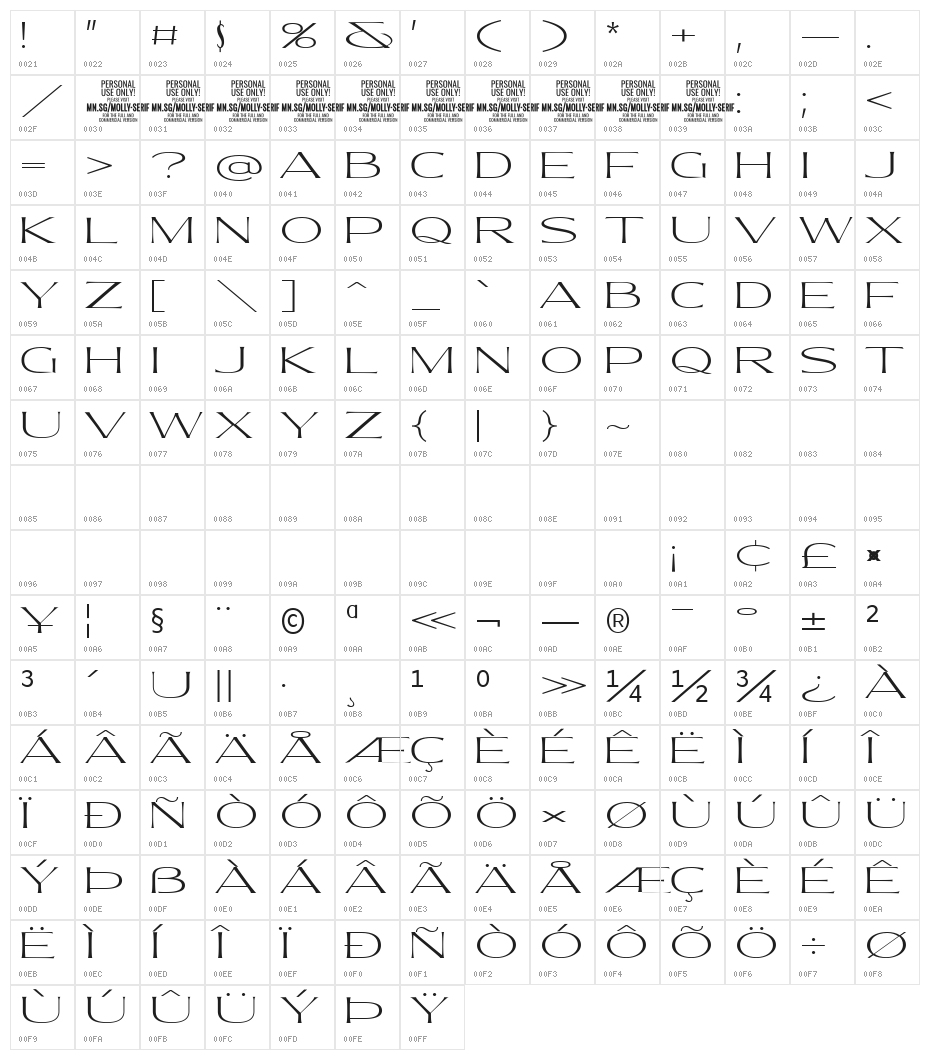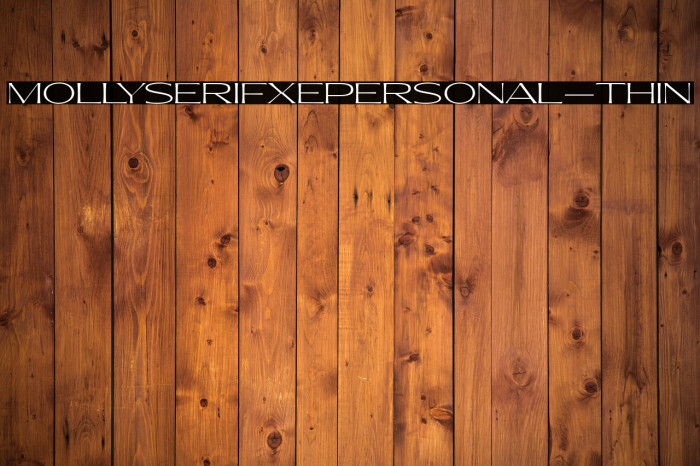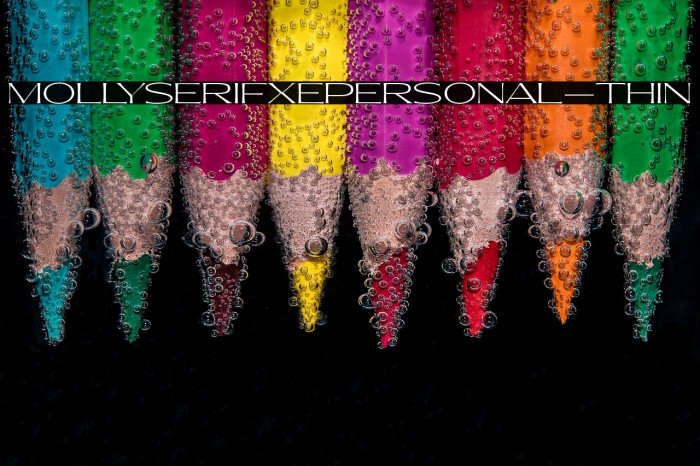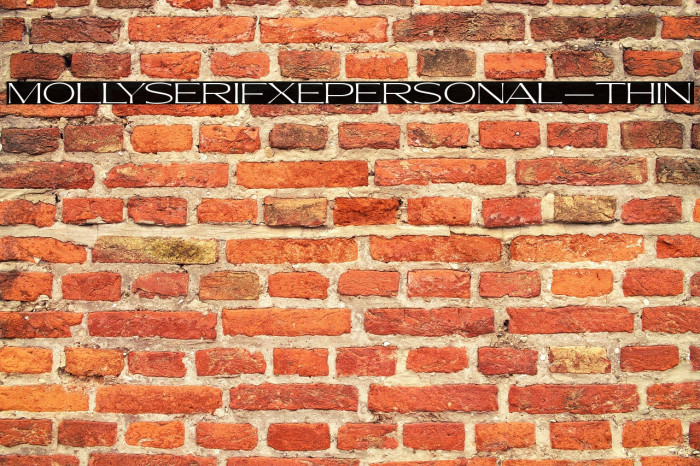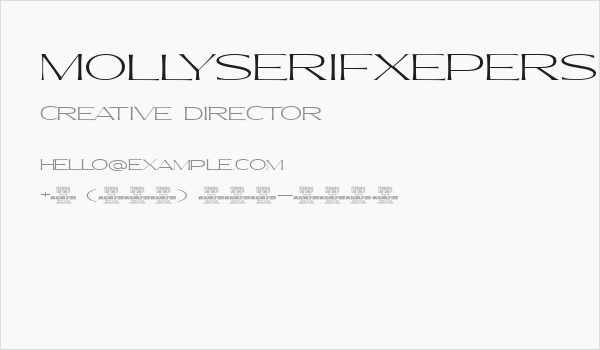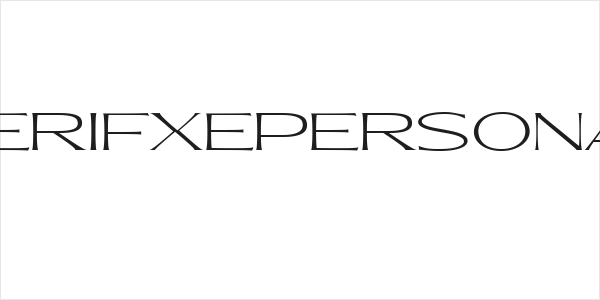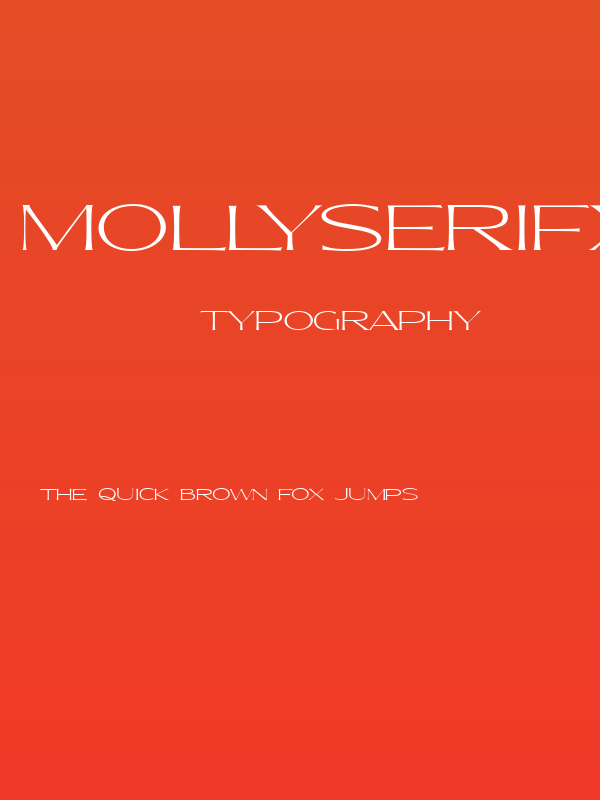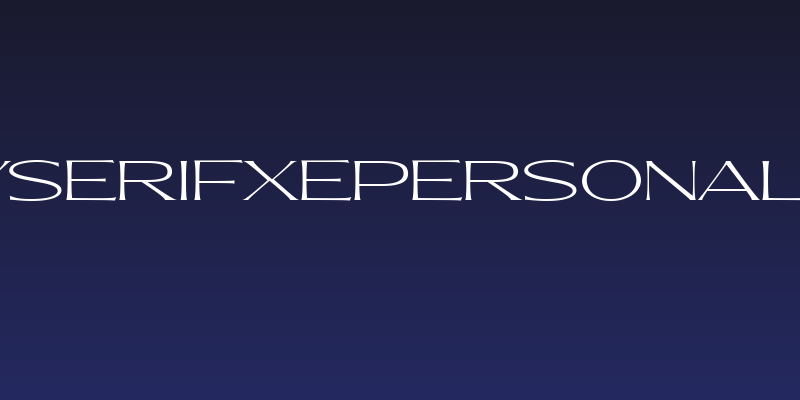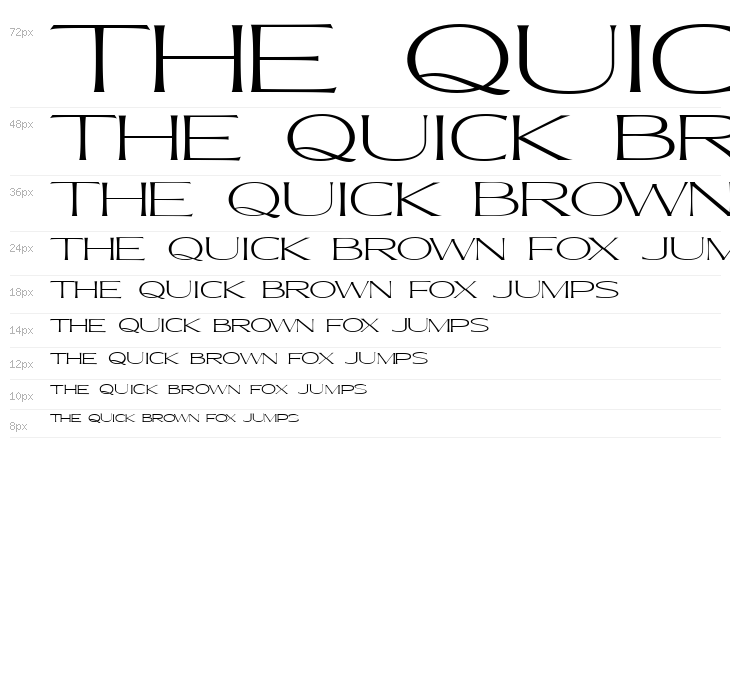
MollySerifXEPERSONAL-Thin Font
MollySerifXEPERSONAL-Thin Description
This font features a unique blend of modern and classic elements, characterized by its thin, elegant strokes and subtle serifs. The uppercase letters exhibit a sophisticated style with elongated forms and sharp angles, creating a sense of refinement and grace. The lowercase letters maintain a consistent design, complementing the uppercase with their sleek and streamlined appearance. The numerals and special characters are crafted with the same attention to detail, ensuring a cohesive look across all glyphs. This font's thin weight and high contrast between thick and thin strokes make it suitable for projects that require a touch of elegance and sophistication.
| Proposed Projects | Ideal for wedding invitations, luxury branding, editorial design, and high-end product packaging. |